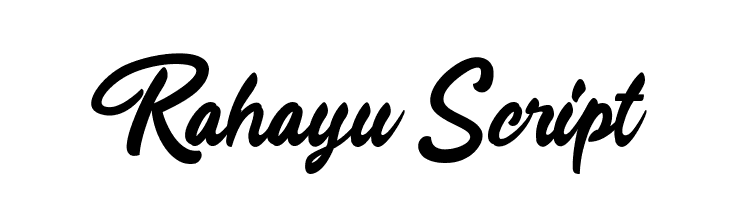
A flowing script font with elegant, connected strokes and a handwritten feel.
A sophisticated cursive script font with a seamless, flowing style.
A bold, handwritten-style font with thick strokes and smooth curves.
A playful, bold handwritten font with smooth curves and a modern, informal style.
A bold, brush-style font with dynamic and expressive strokes.